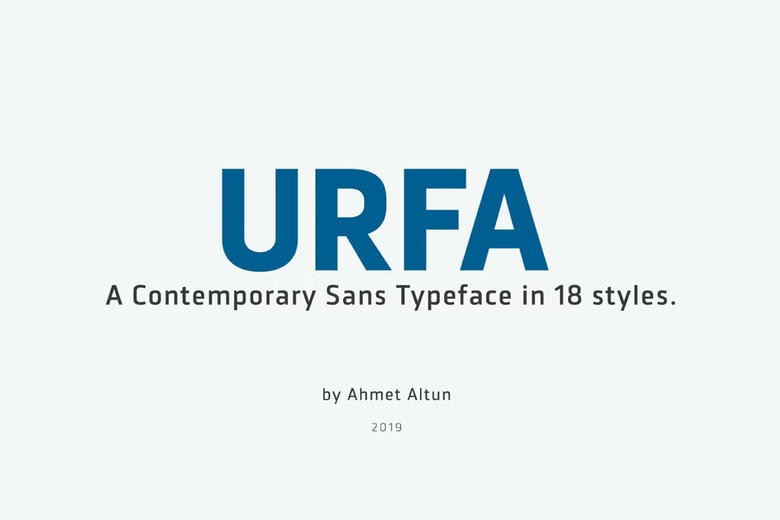
Urfa Font Family
Urfa has availability for nine styles of Normal and Italic styles. Furthermore, every weight comes with small caps in the italic and non-bold style. The family of fonts that has been introduced here in this guide has potential to best fit for the use in the creation of logo, banners, body text, and presentations meant for the website.
Like other types of signage, Urfa typeface also suits well for print media used in creating posters, T-shirts, magazines, and affiches. Due to the fact that it has an aesthetic feature, this font is not only appropriate but also versatile. It supports a large number of languages such as, Extended Latin and Cyrillic.
Urfa Sans Serif Font Family